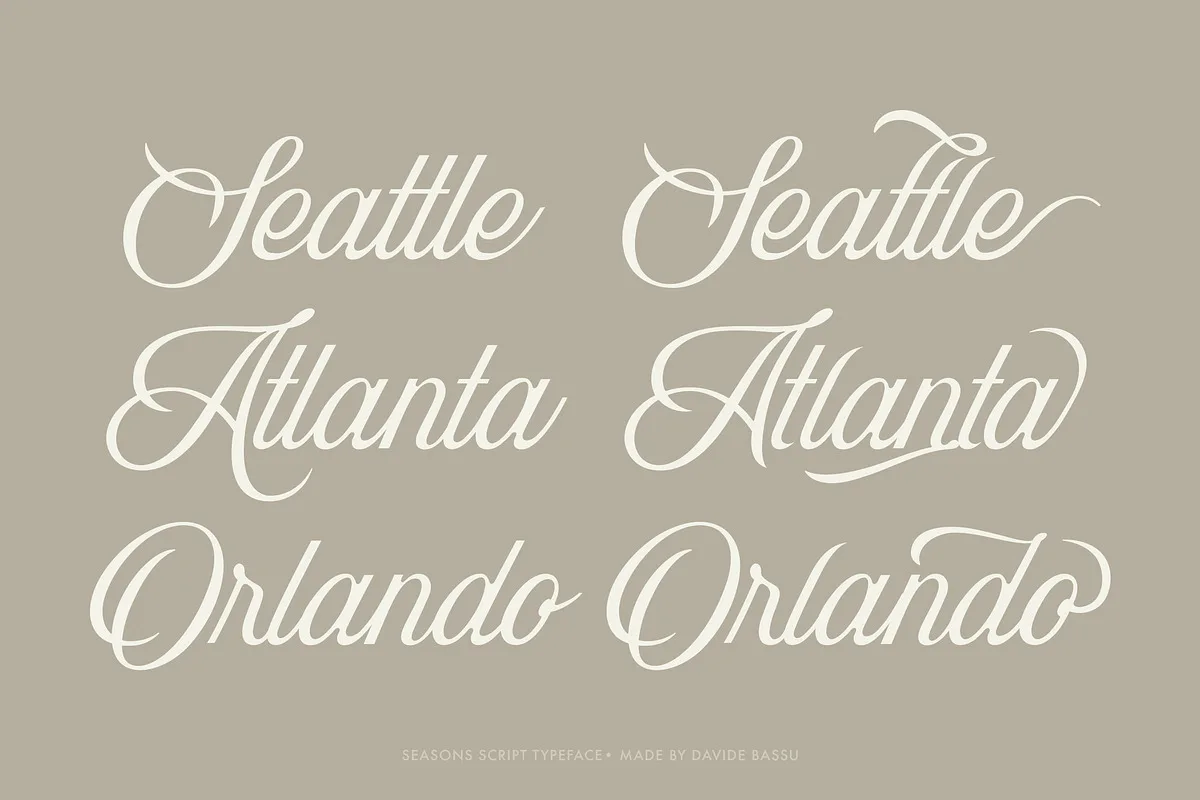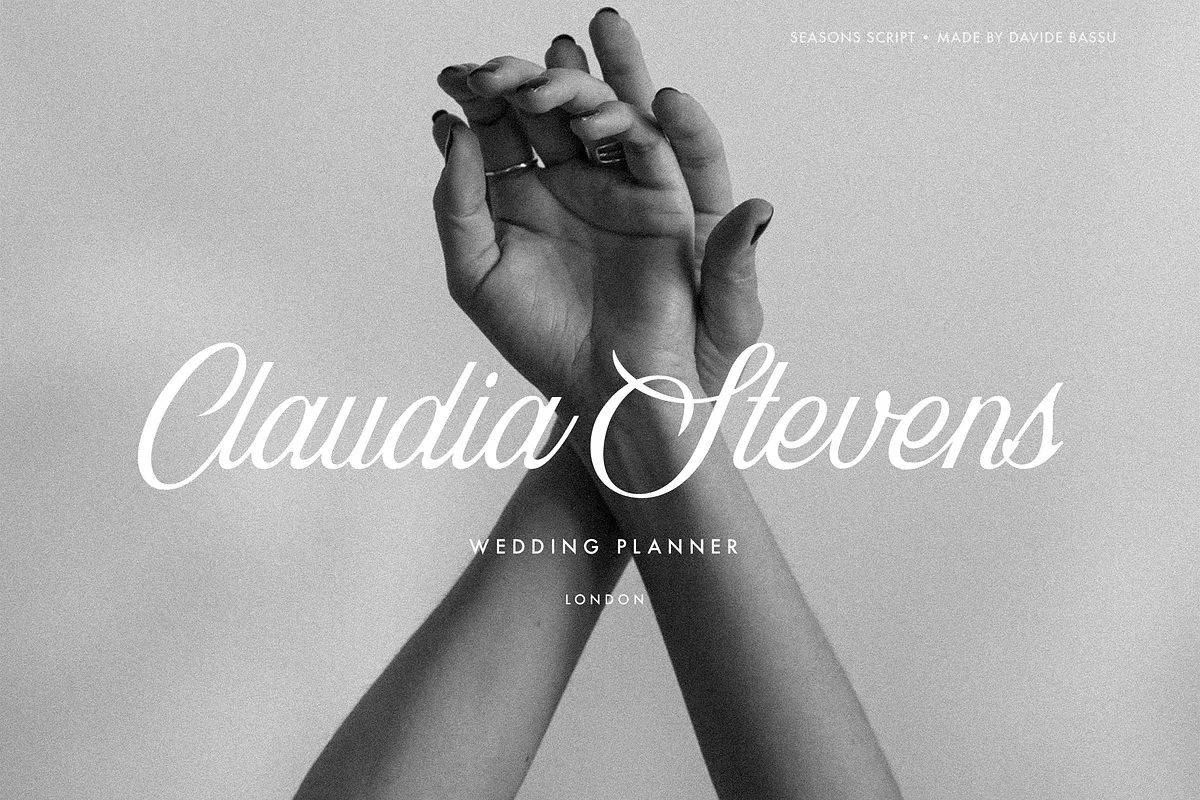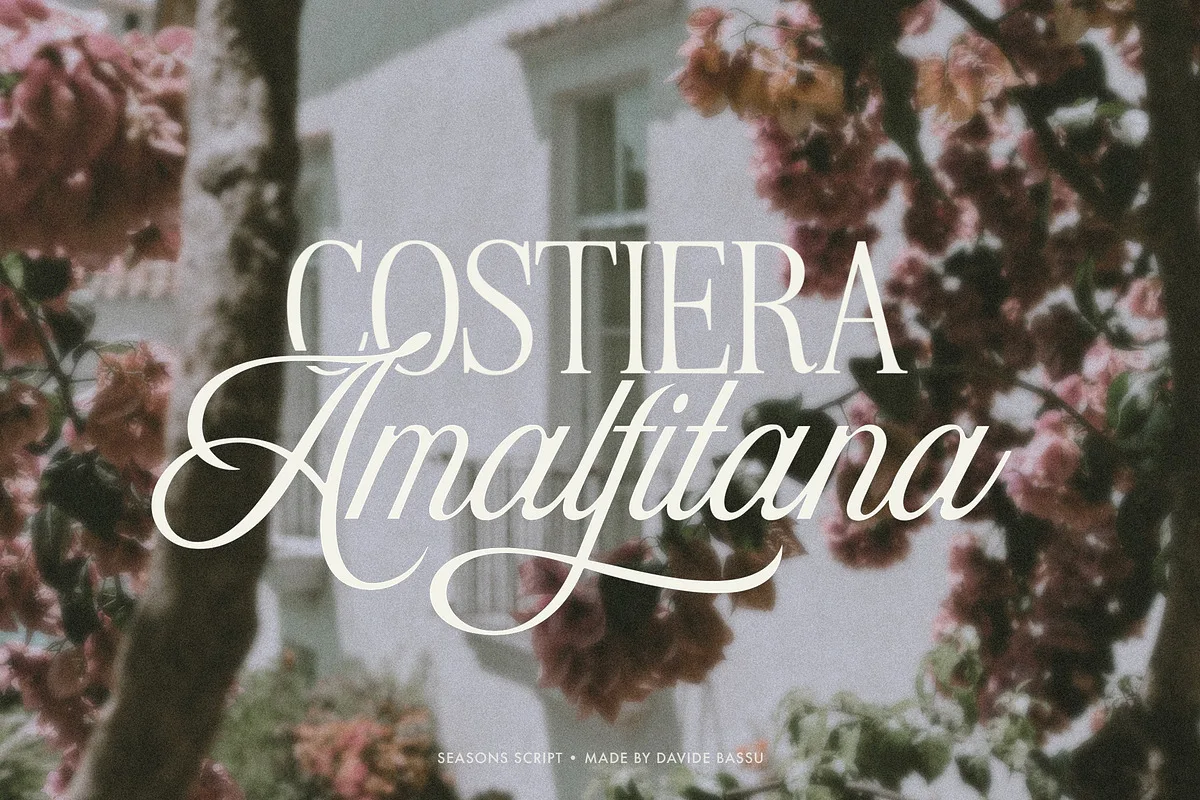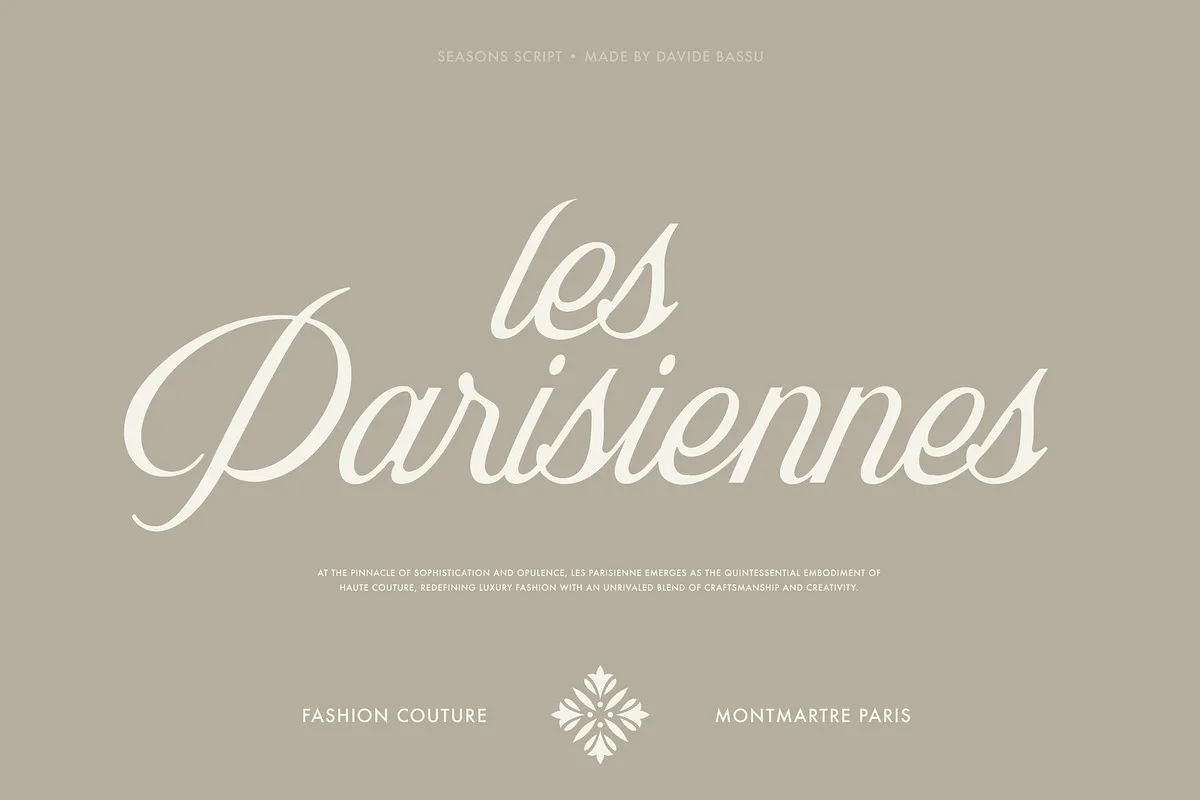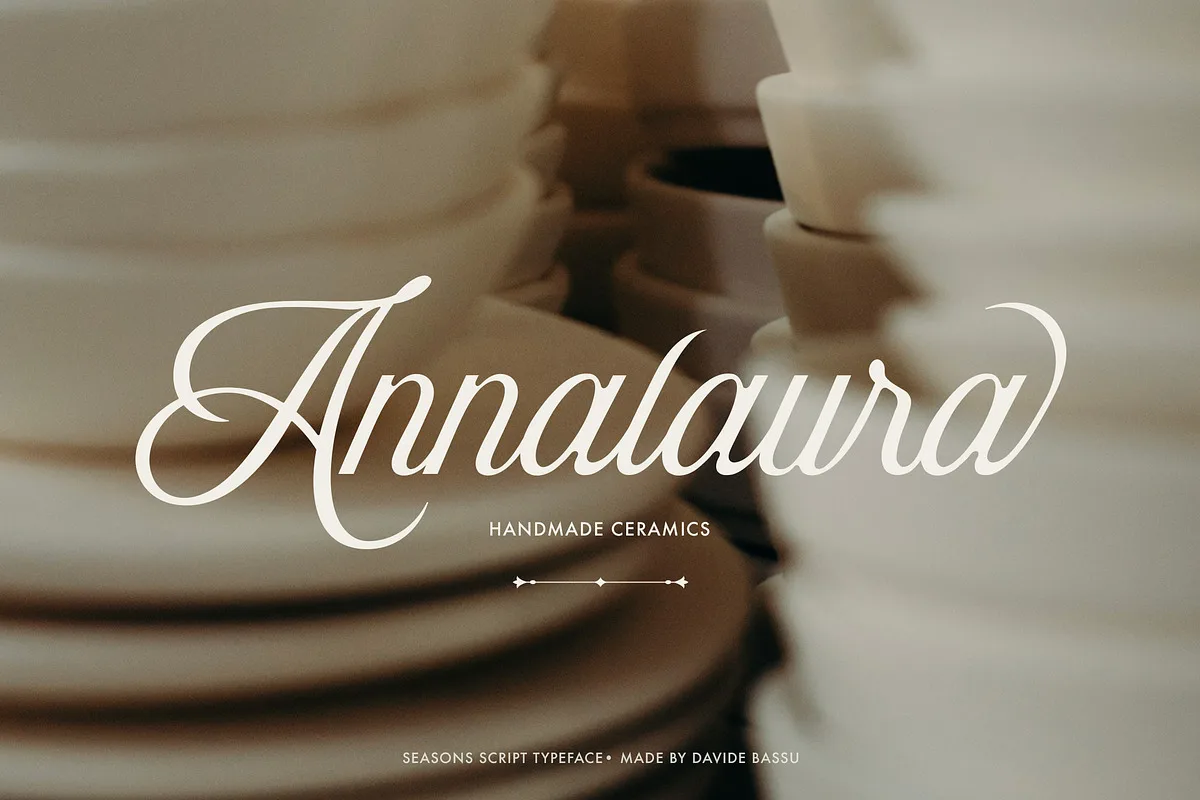
Seasons Script is an elegant and romantic script that can be used in a wide range of projects such as logo design, wedding invitations, product packaging, apparel design, and more.
It comes with over 60 stylistic sets, including alternate characters and ligatures built into its OpenType features that allow the script to adapt to any project.